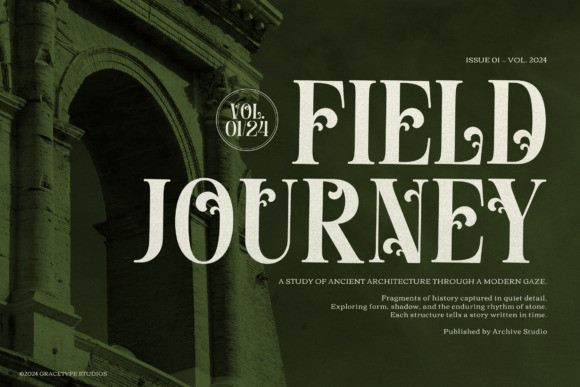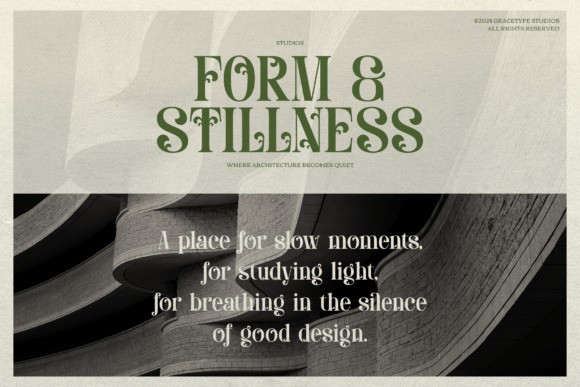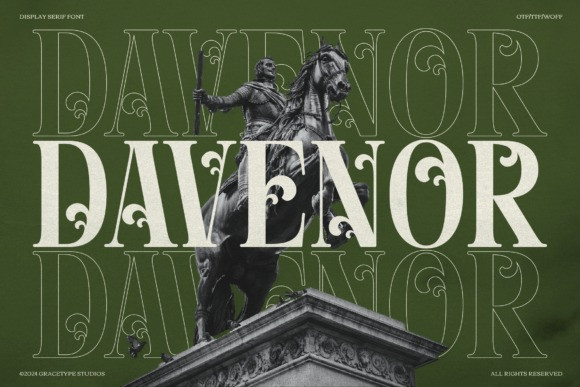
Davenor Font
Davenor Font a sophisticated Display Serif Font characterized by its high contrast, dramatic lines, and ornamental, curving serifs.
This typeface expertly fuses classical proportions with a sleek, modern sensibility, delivering a powerful and exclusive aesthetic.
The Davenor font is an exceptional choice for luxury branding, editorial layouts, high-fashion advertisements, historical or museum exhibitions, and distinctive logo design. Its striking Davenor typeface forms are designed for maximum impact, making it the perfect hero font for projects requiring refined authority and timeless beauty.